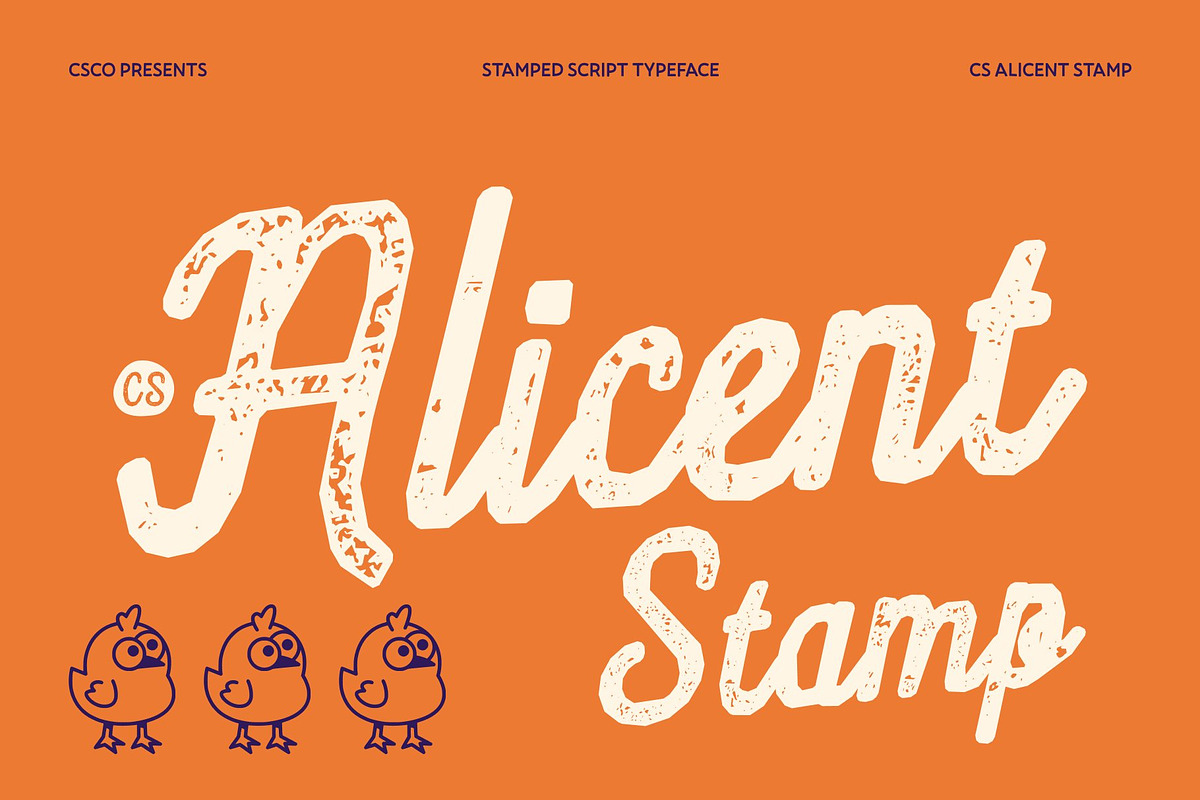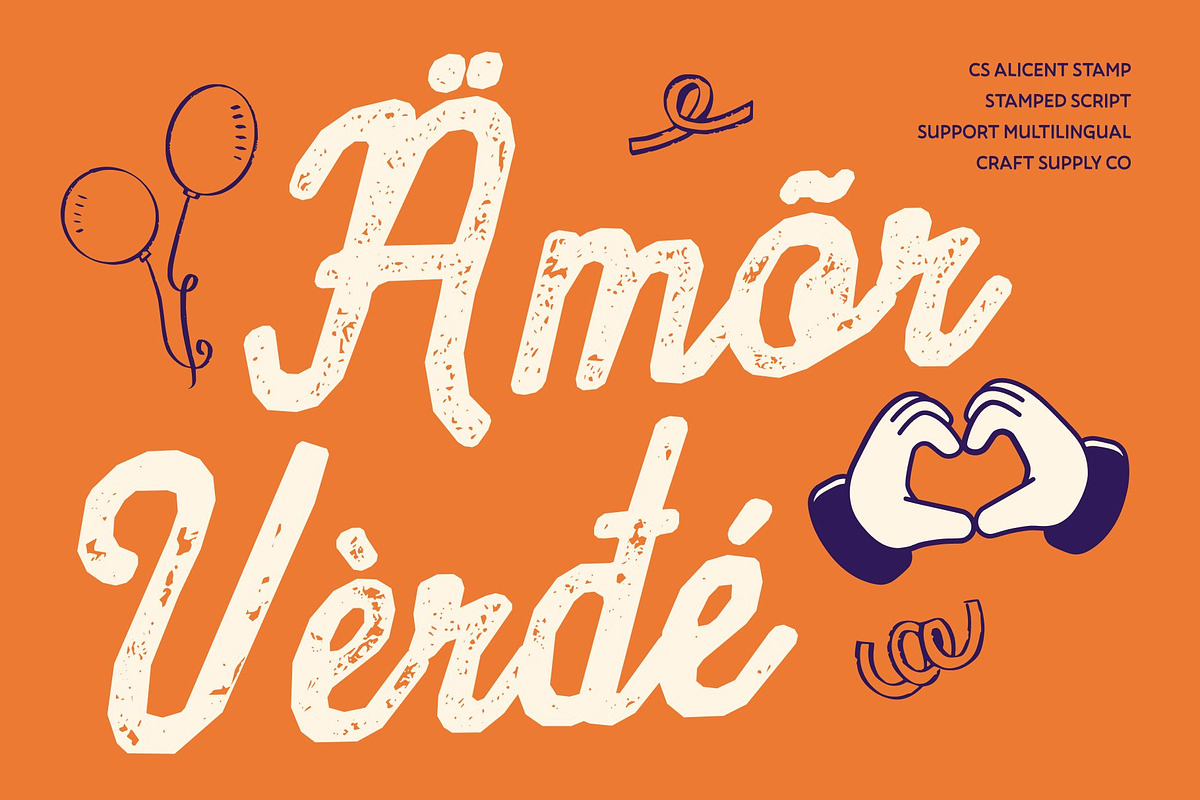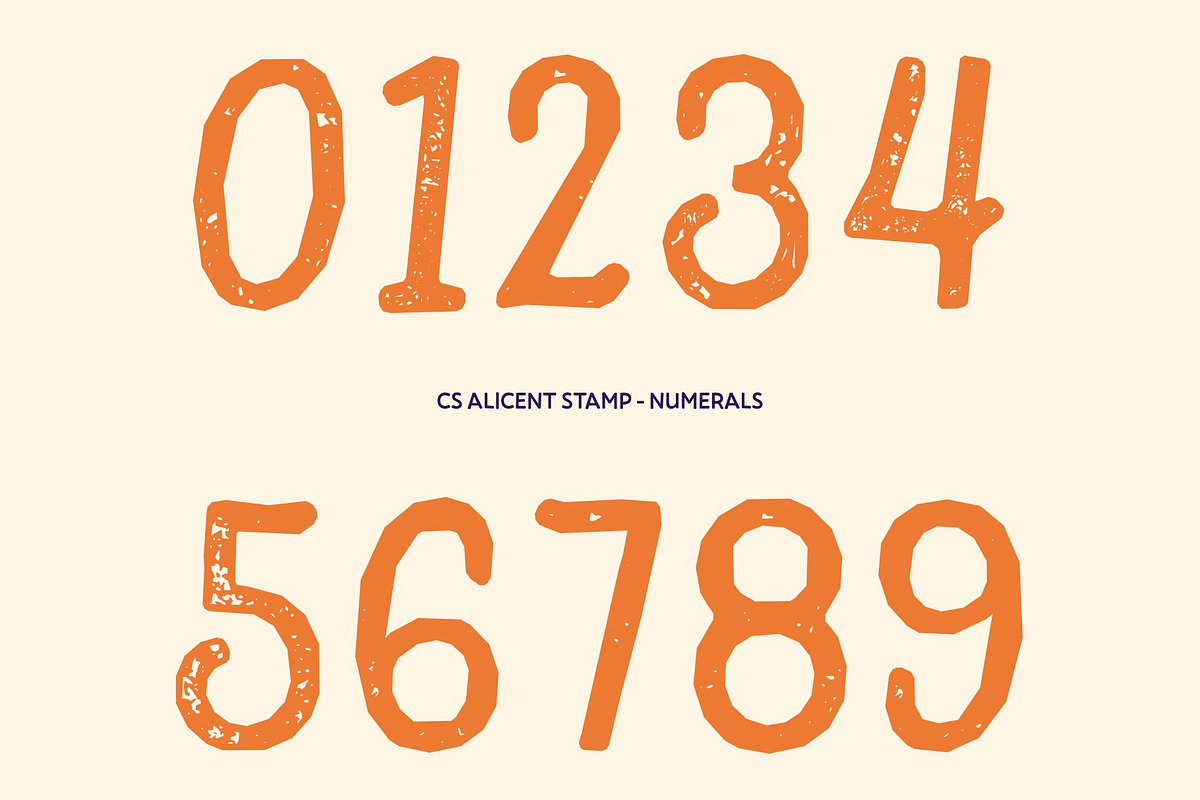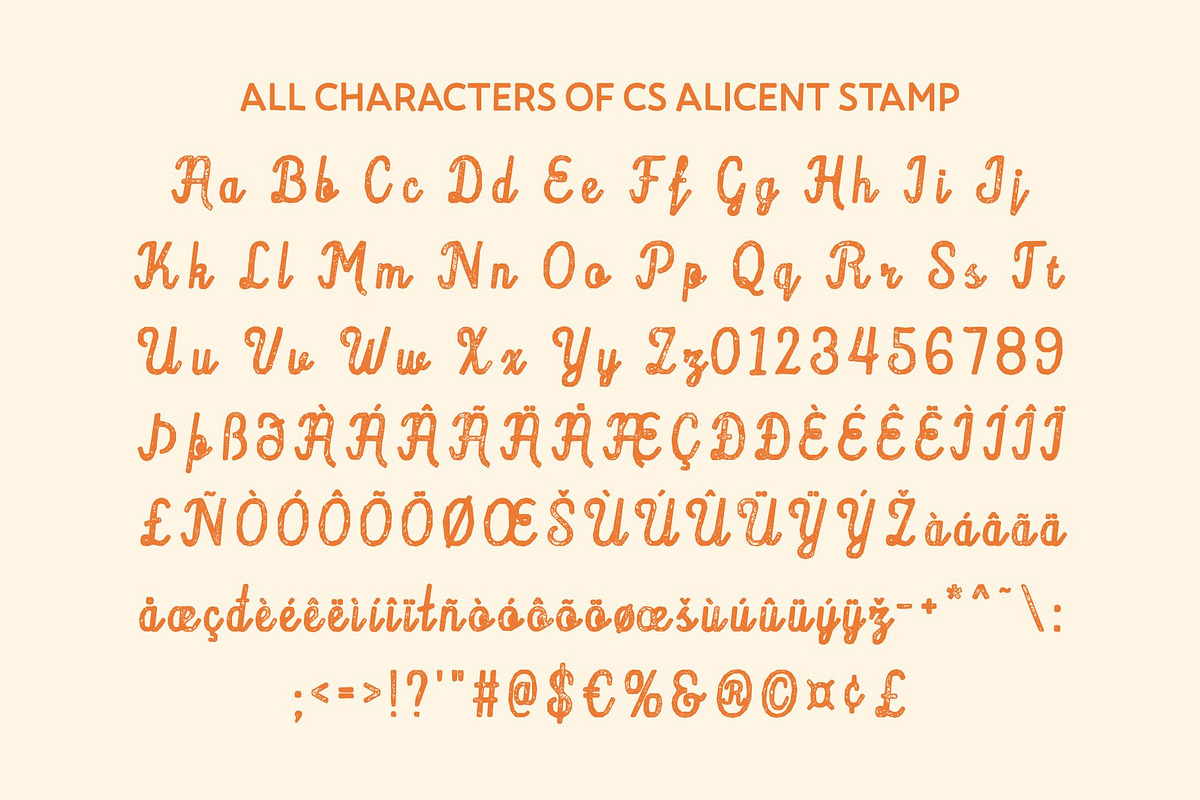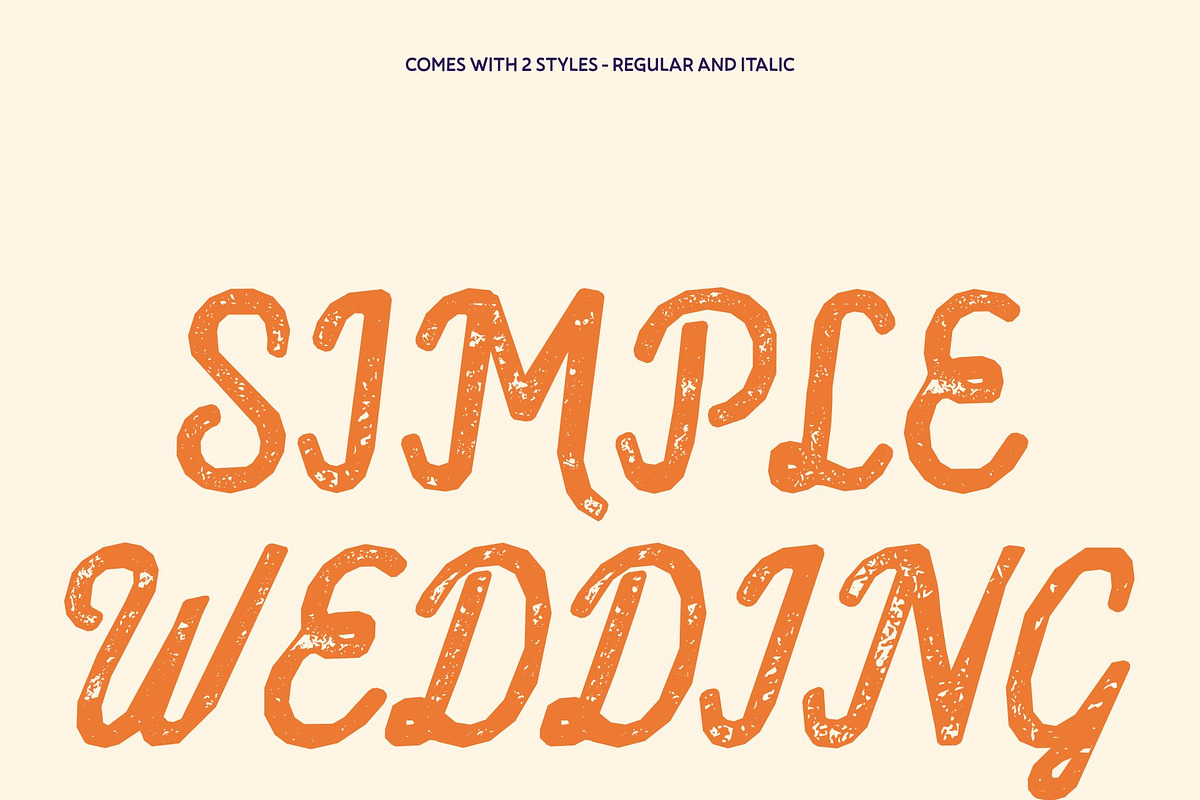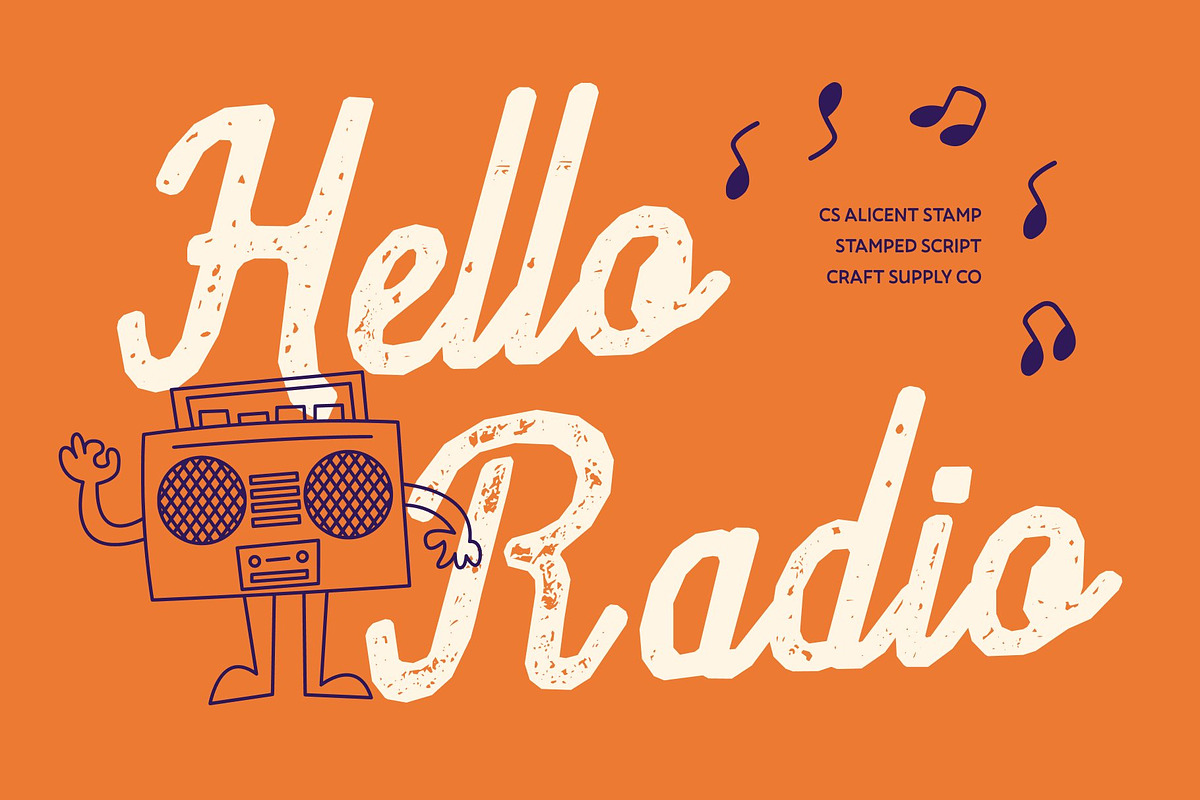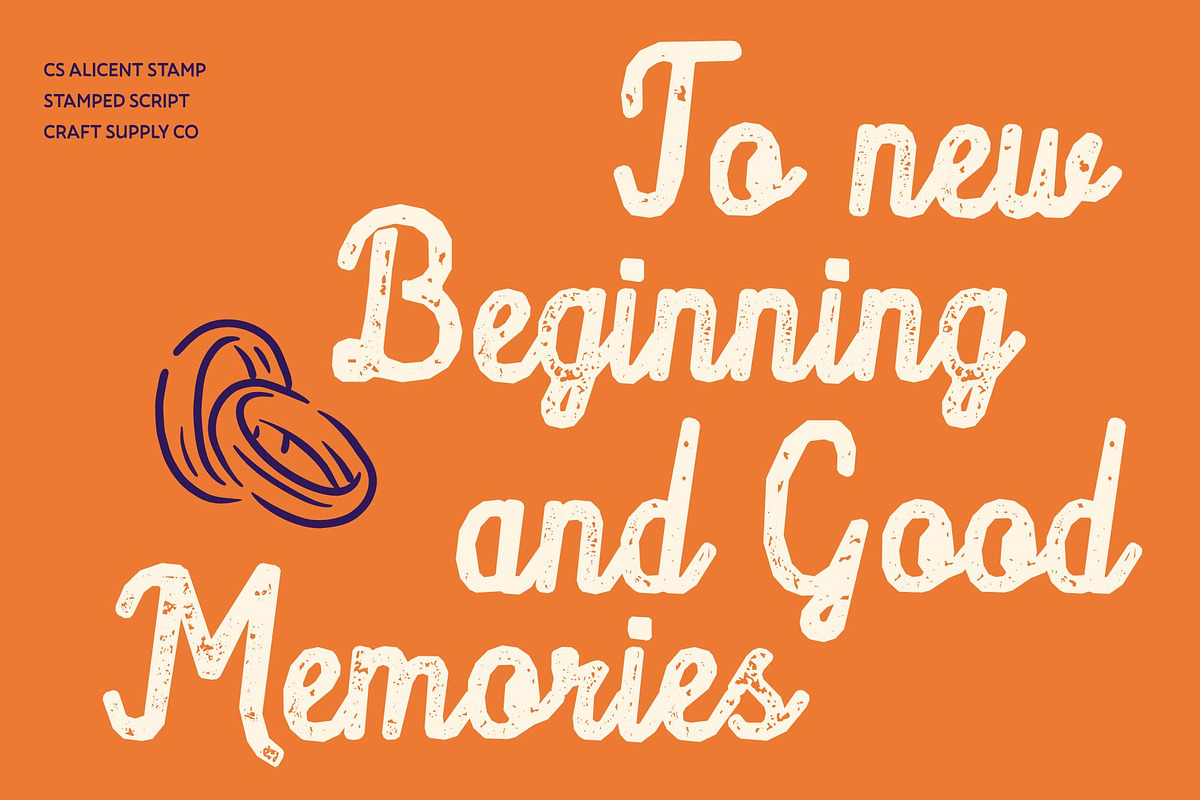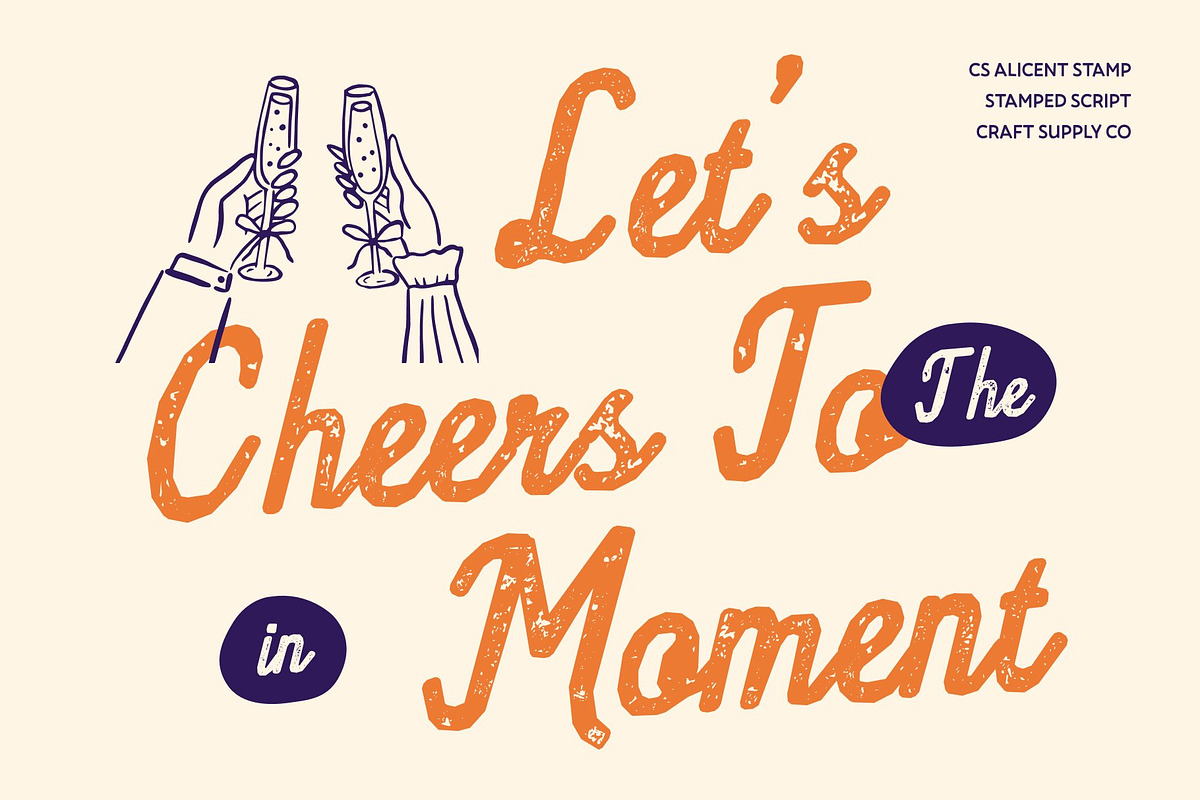
CS Alicent Stamp
CS Alicent Stamp – Script Font with Graceful Vintage Beauty Handwritten Script with Textured Stamp Elegance This is a script font inspired by natural handwritten flow and elevated with a vintage stamp effect. Its smooth, flowing strokes retain their organic rhythm while gaining a textured, ink-pressed finish that adds depth and authenticity. The stamped surface introduces subtle imperfections, creating a timeless, handcrafted look that feels warm, expressive, and beautifully aged.
Feminine Curves with Artistic Character Delicate curves and soft connections give this font a feminine and aesthetic impression, enhanced by the worn stamp texture. The result is a graceful script that feels emotional and personal, yet visually rich perfect for designs that seek beauty with character and a nostalgic touch.
Soft Vintage Vibe for Beauty and Lifestyle Design With its refined form and aged texture, this font fits seamlessly into beauty branding, skincare packaging, lifestyle visuals, and boutique products. The stamp effect adds an old-design charm, making the typography feel artistic, tactile, and emotionally engaging rather than overly polished.
Versatile for Invitations, Branding, and Elegant Print From wedding invitations and luxury branding to editorial layouts and logo design, this font adapts effortlessly. Its handwritten elegance paired with vintage texture ensures strong visual appeal while maintaining readability. For projects that seek a blend of handwritten authenticity, artistic texture, and timeless elegance, delivers a beautifully balanced typographic solution.